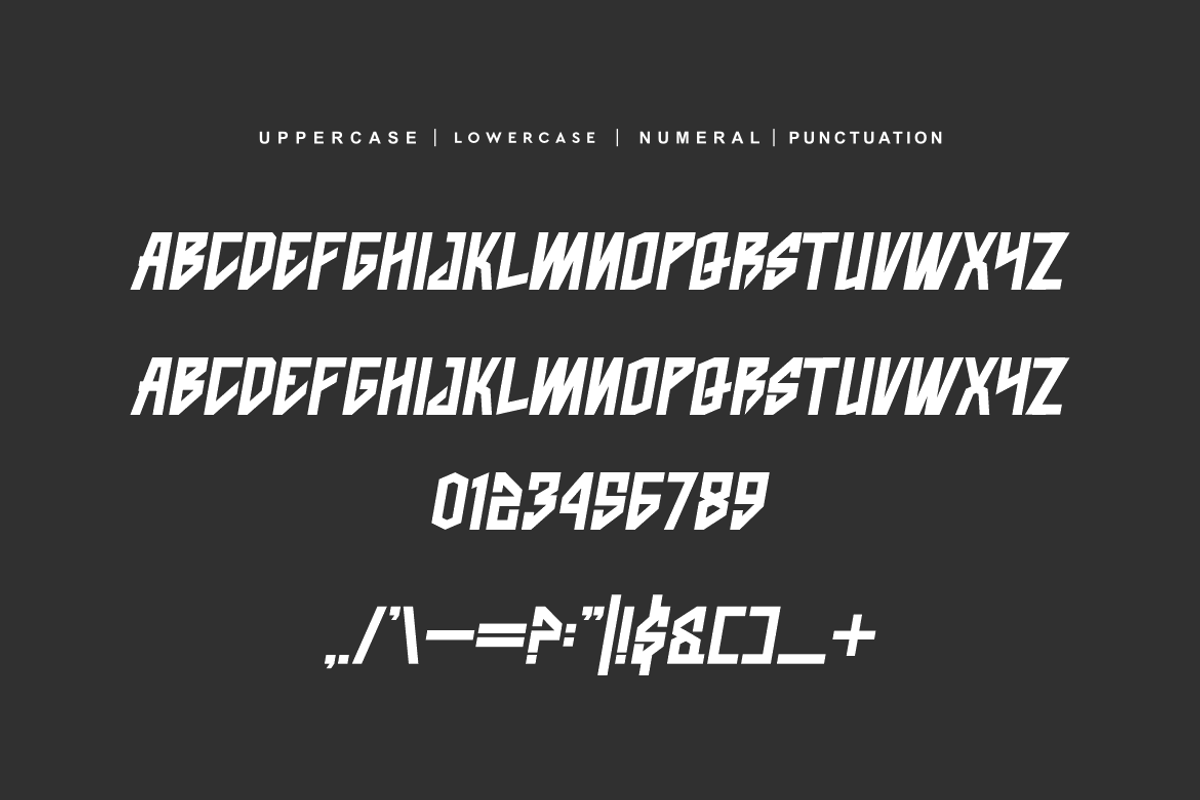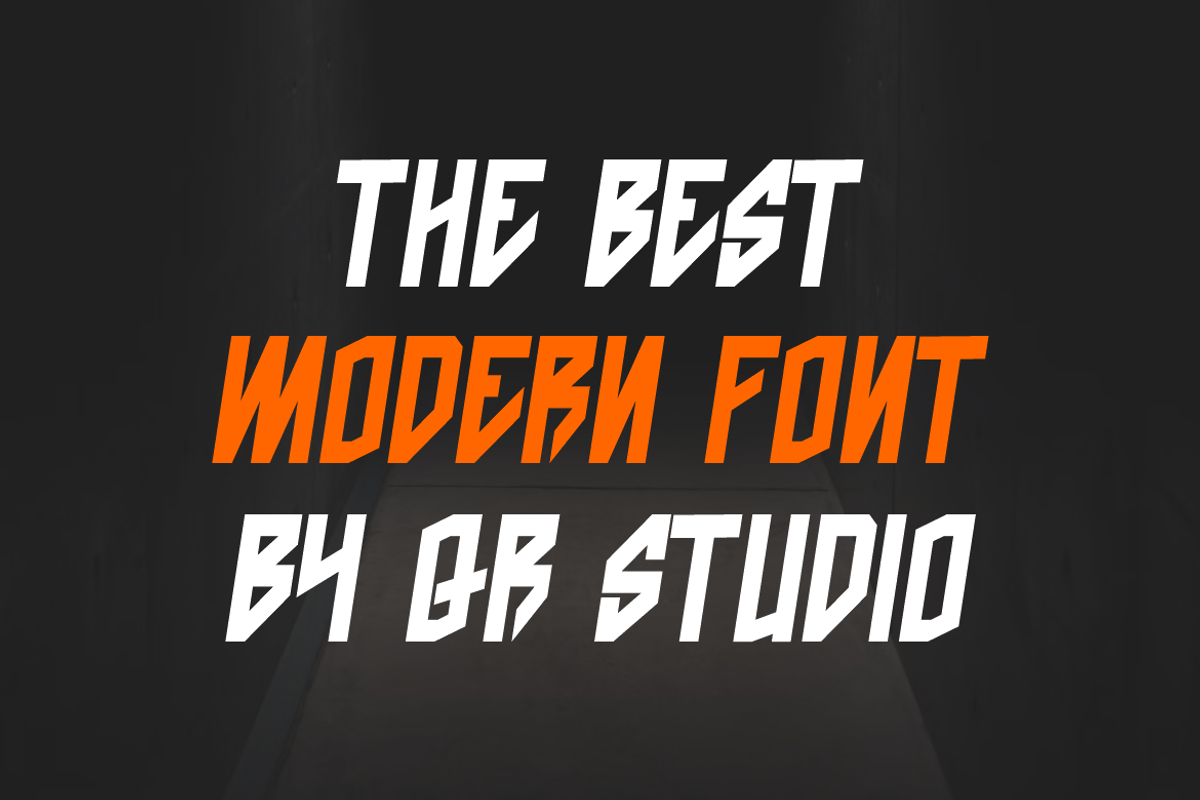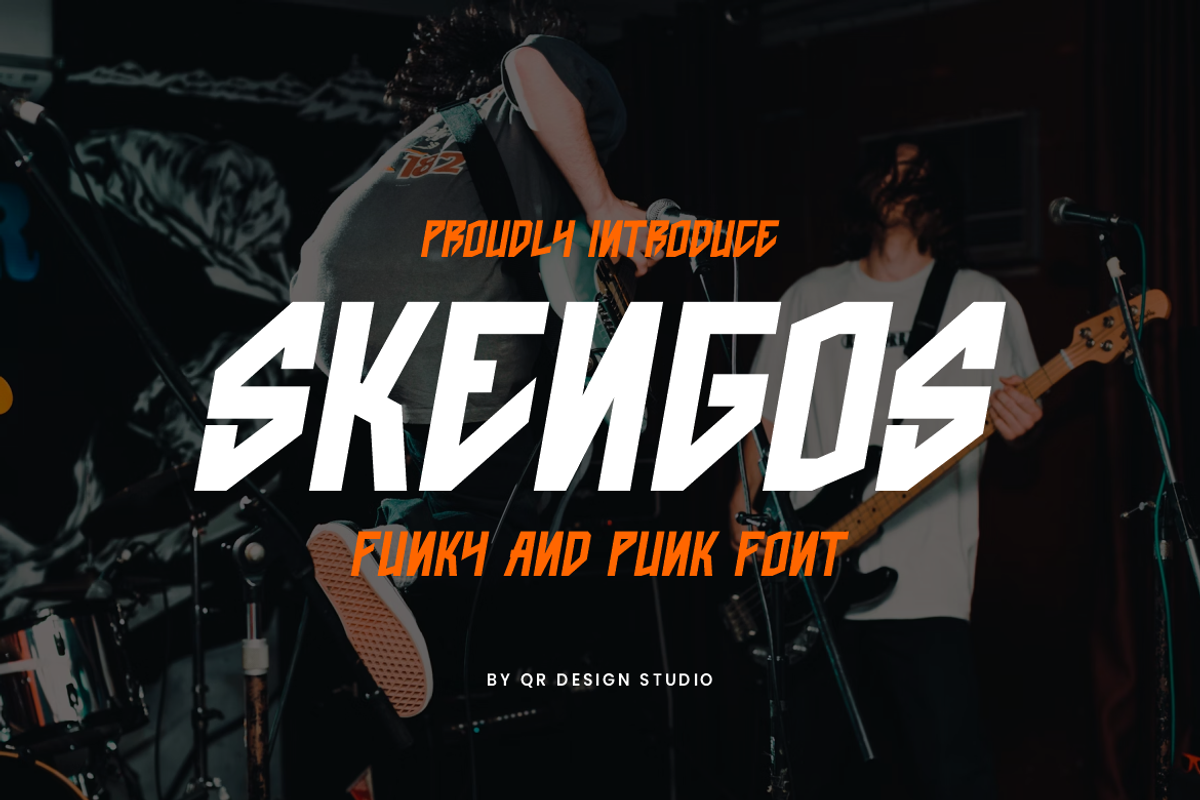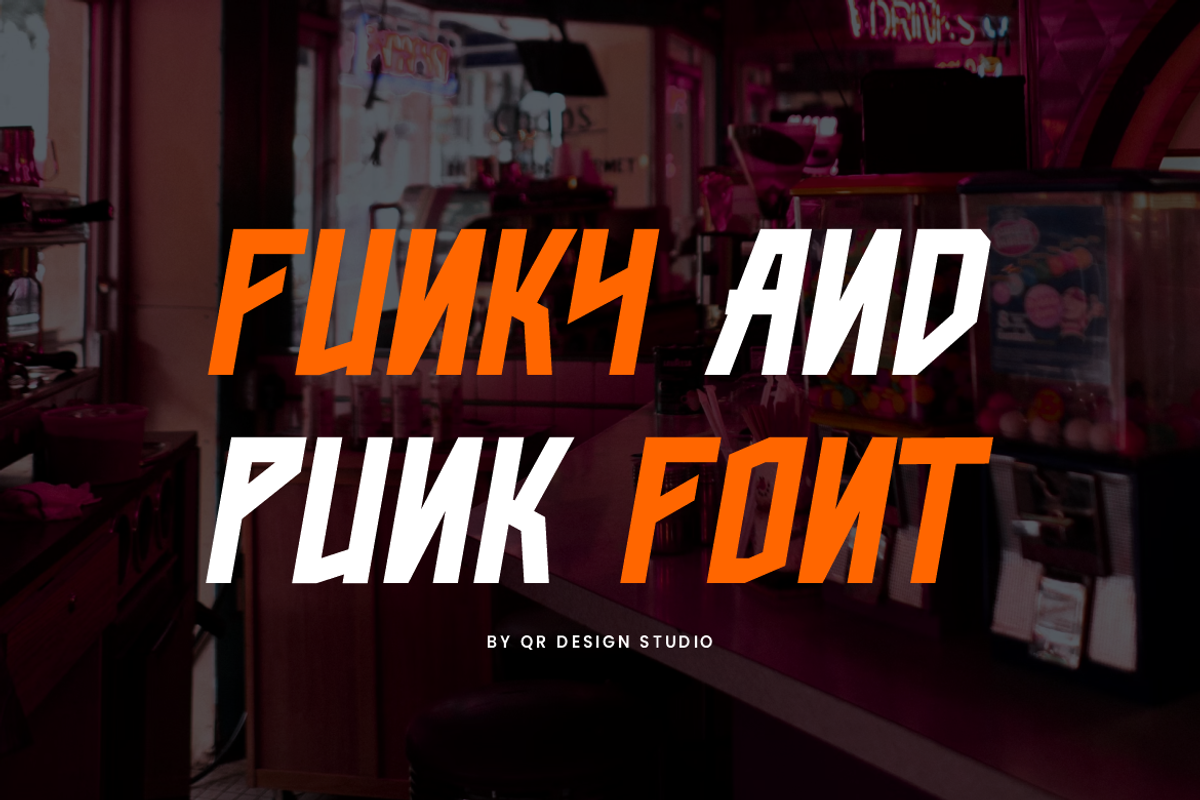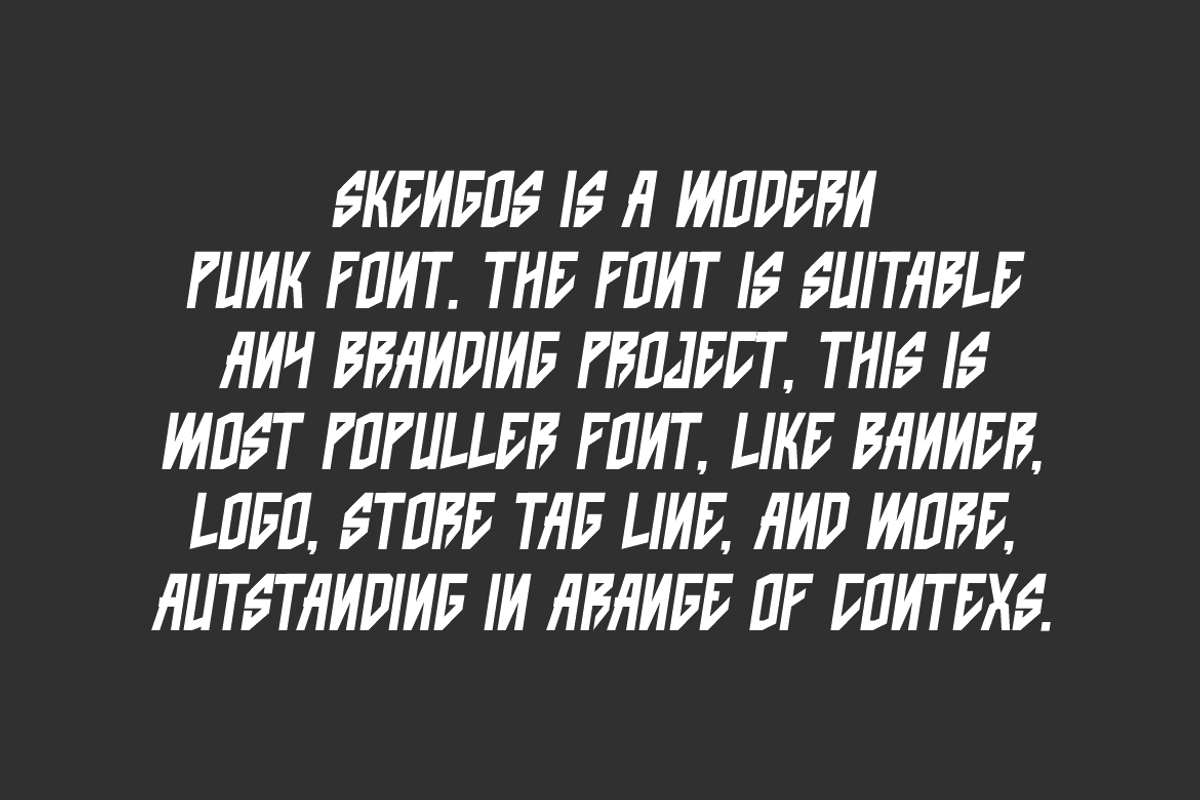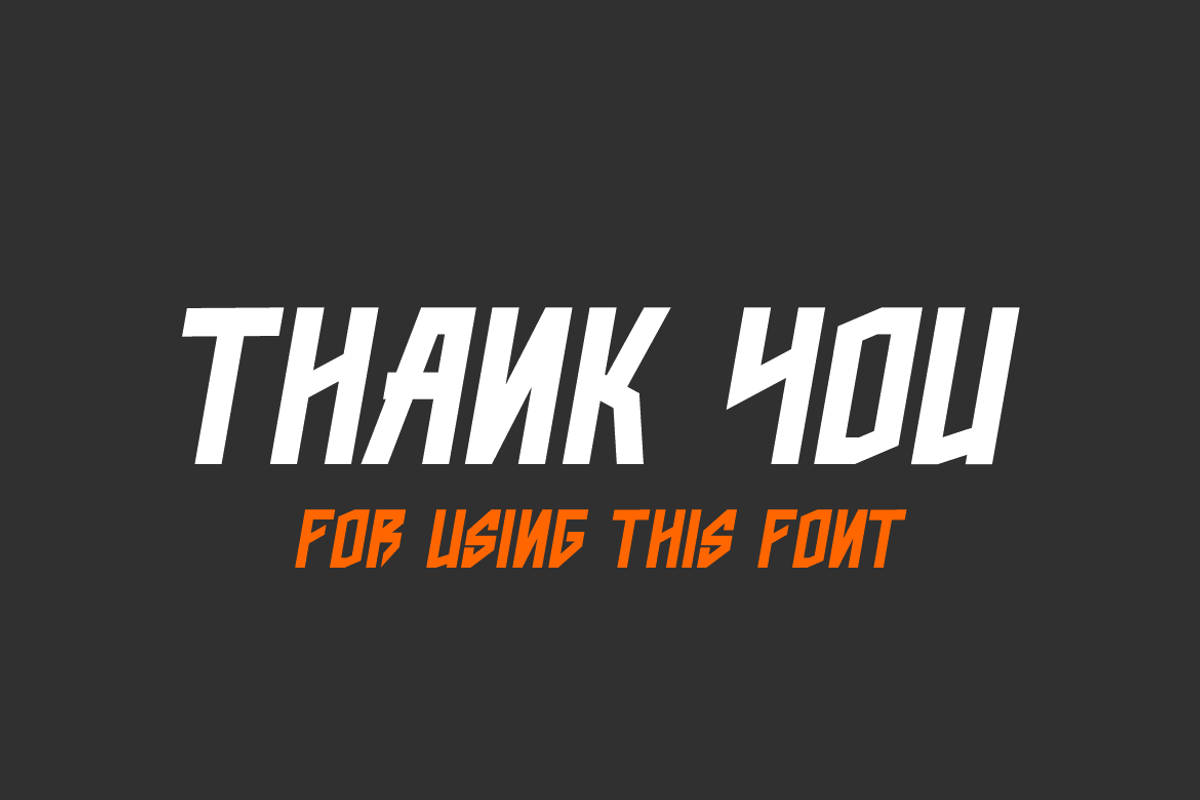
Skengos - Funky & Punk Font
Skengos Font is a bold and authentic display font. The font is suitable for any branding project like poster, logo, sport, and many more. Outstanding in a wide range of contexts.